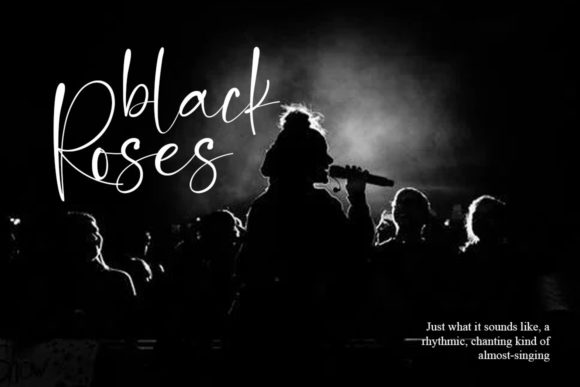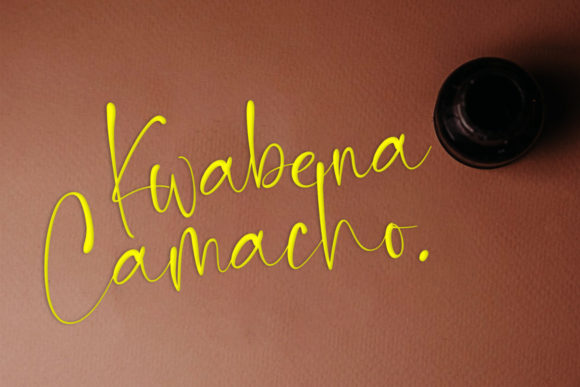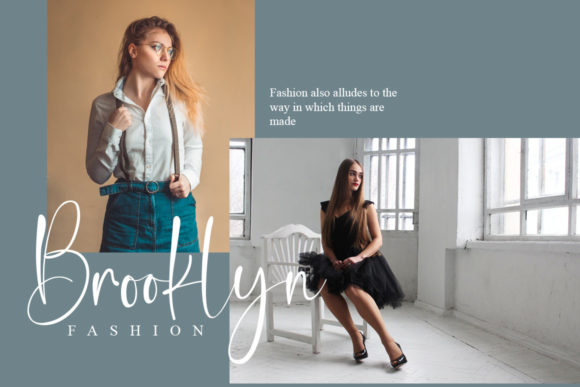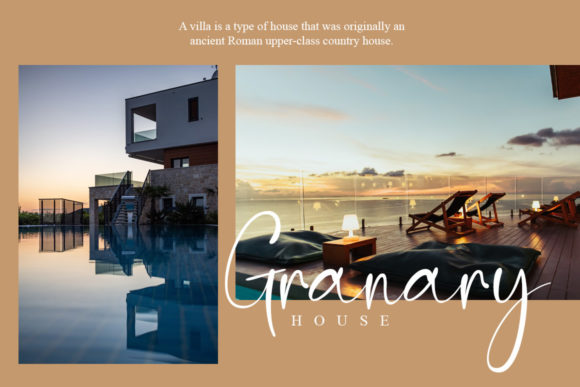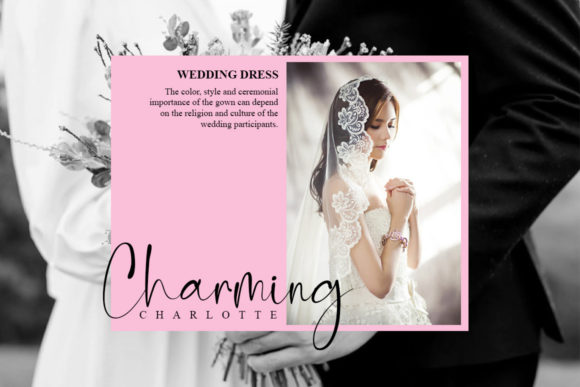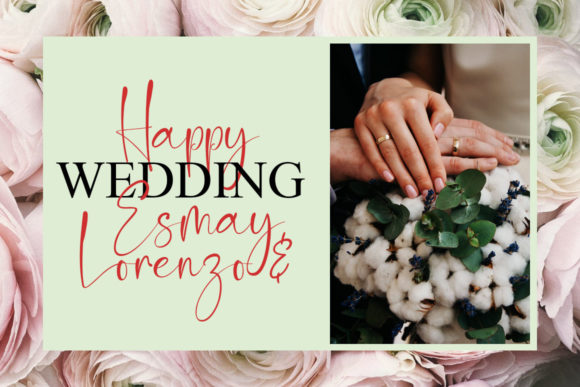
Introduction to Ink Black Font
As you sit in front of your computer, staring at a blank canvas, waiting for inspiration to strike – and it does! A sudden spark of creativity hits you, and you envision a beautiful, elegant design that showcases your artistic flair. You’re in search of the perfect font to bring your vision to life, something that exudes sophistication and class. That’s where the Ink Black Font comes in – a lovely and delicate script font that is sure to elevate your creative project to new heights.
This high-quality font is not just a design resource, but a valuable tool for designers looking to add a touch of refinement to their work. With its transparent background and free download option, you can easily incorporate the Ink Black Font into your next project without any hassle. Whether you’re working on a commercial or personal design, this font is sure to leave a lasting impression.
- High-quality design resource for creative projects: Ink Black Font is a premium font that offers a sleek and modern look perfect for various creative projects.
- Unique, modern design: Ink Black Font features a unique and modern design that is perfect for creative projects that require a touch of sophistication.
- Perfect for logos, titles, and headings: This font is ideal for use in logos, titles, and headings due to its clean and modern design.
Honest Review: Ink Black Font
I recently had the chance to work with the Ink Black Font, and I must say it’s a fantastic addition to any designer’s toolkit. As a free download, it’s a great resource for creative projects where you need a sleek, modern look. One of the standout features of this font is its transparent background, which makes it easy to customize and layer over other design elements. ✨
- Some users may find the font too minimalist for certain projects
Overall, I’m really impressed with the Ink Black Font. Its high-quality design and ease of use make it a great resource for designers. With a few minor tweaks to address the limitations, I think this font could be a go-to choice for many creative projects. ✨
The Ink Black Font is perfect for any creative project that requires a sleek and modern look. Some common use cases include:
- Creating social media graphics and posts
- Designing business cards and brochures
- Creating presentations and reports
- Designing websites and landing pages